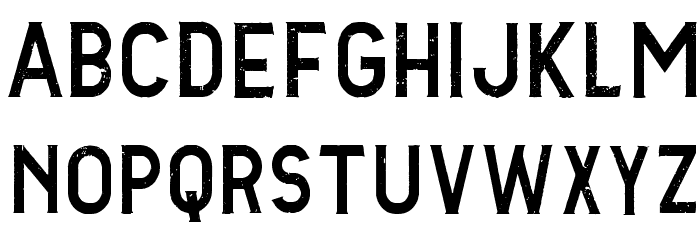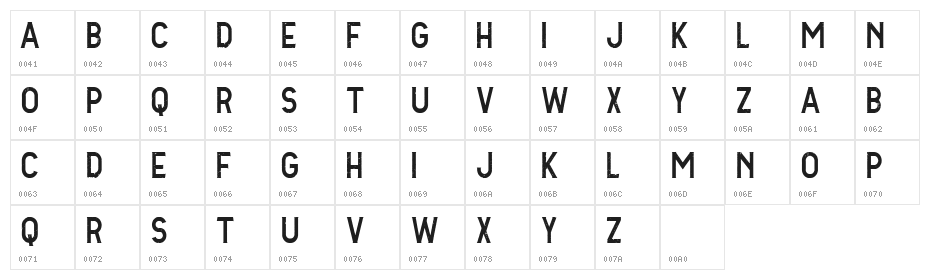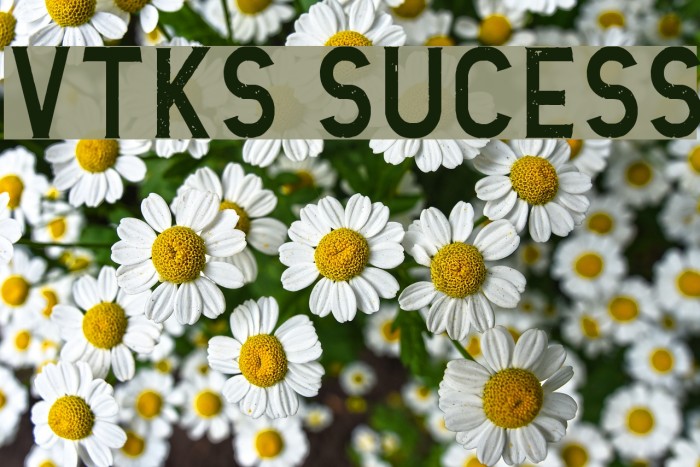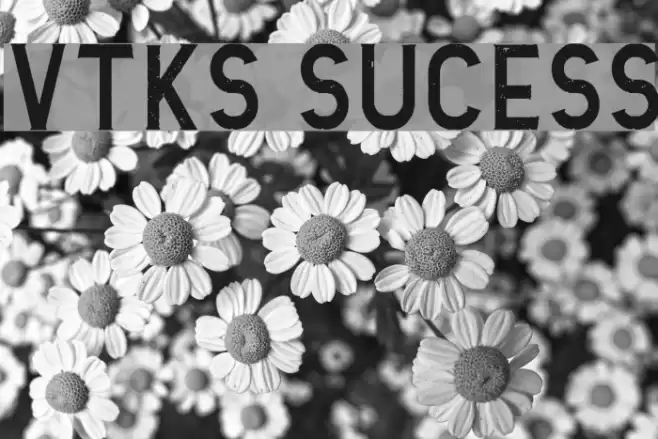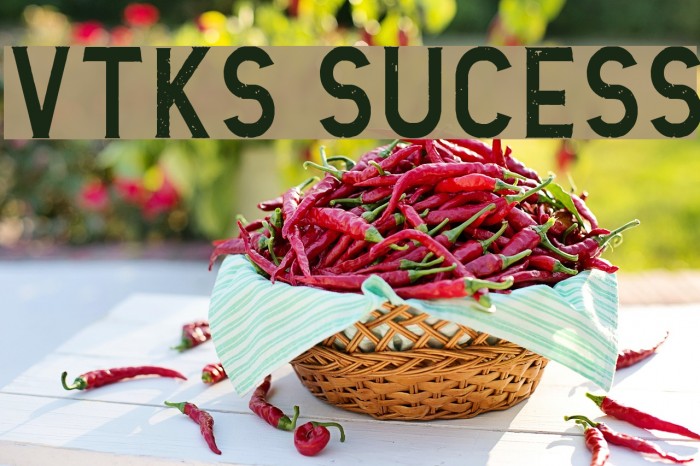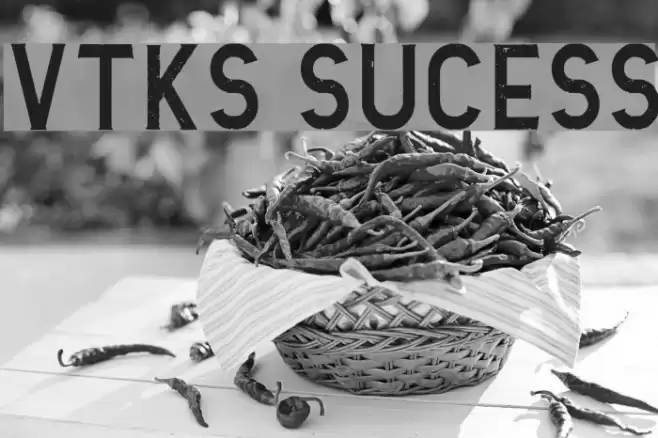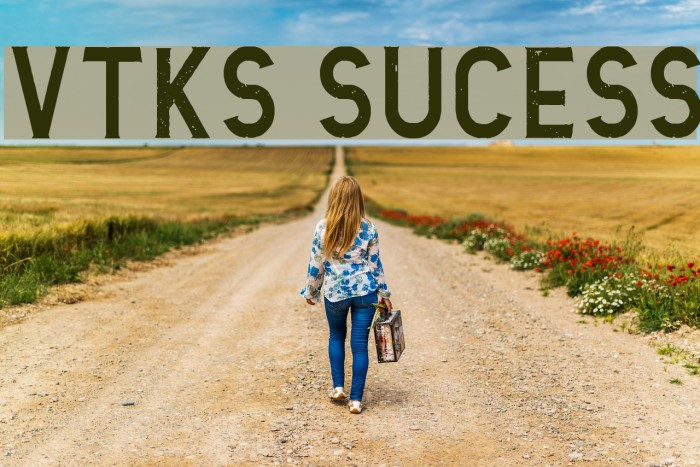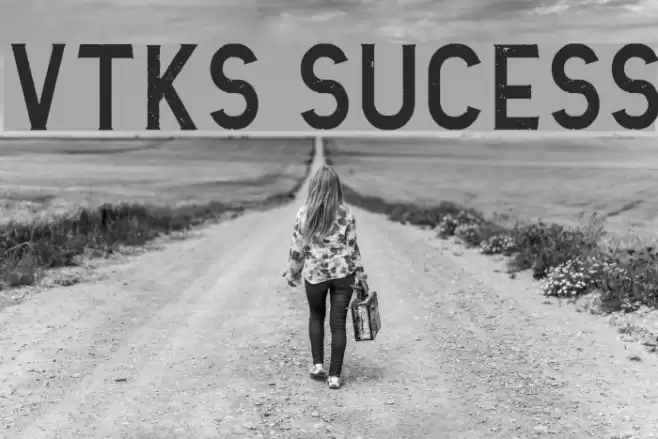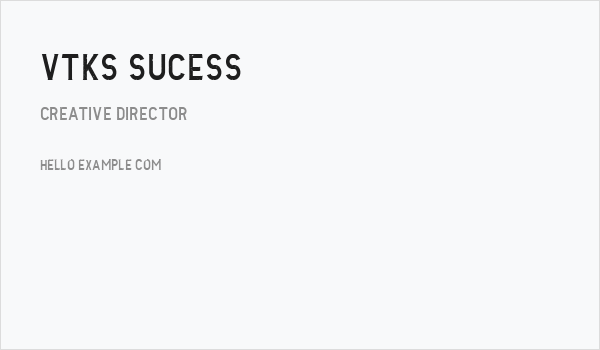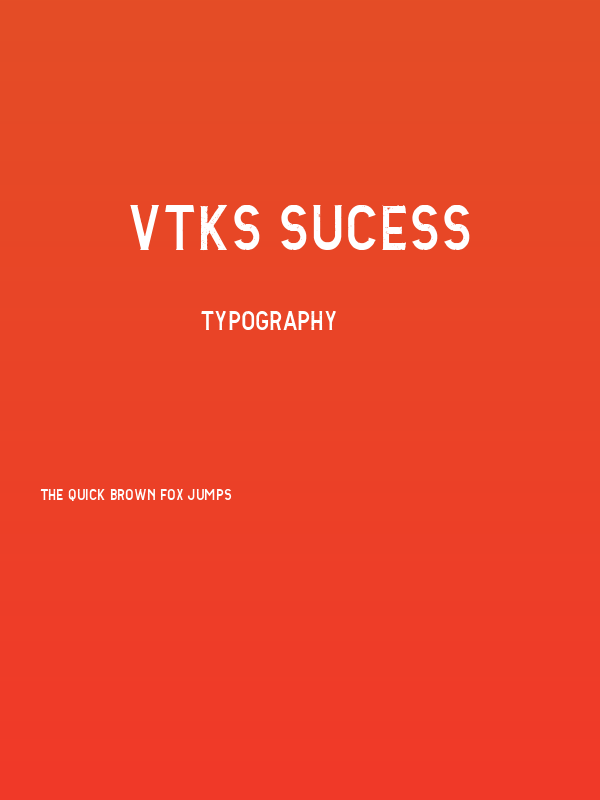
Vtks Sucess Font
Vtks Sucess Description
This font features a bold, distressed style with a vintage, worn-out appearance. The characters are uppercase, with a consistent weight and a slightly rough texture that gives it a rugged, industrial feel. The edges of the letters are slightly irregular, adding to the distressed look. The font maintains a uniform width and spacing, making it easy to read while still retaining its unique character. The overall style is reminiscent of old printing techniques, making it suitable for projects that require a retro or grunge aesthetic.
| Use Case | Logos, Posters, Branding |
| Proposed Projects | Ideal for posters, logos, branding, and any design that requires a vintage or grunge aesthetic. |